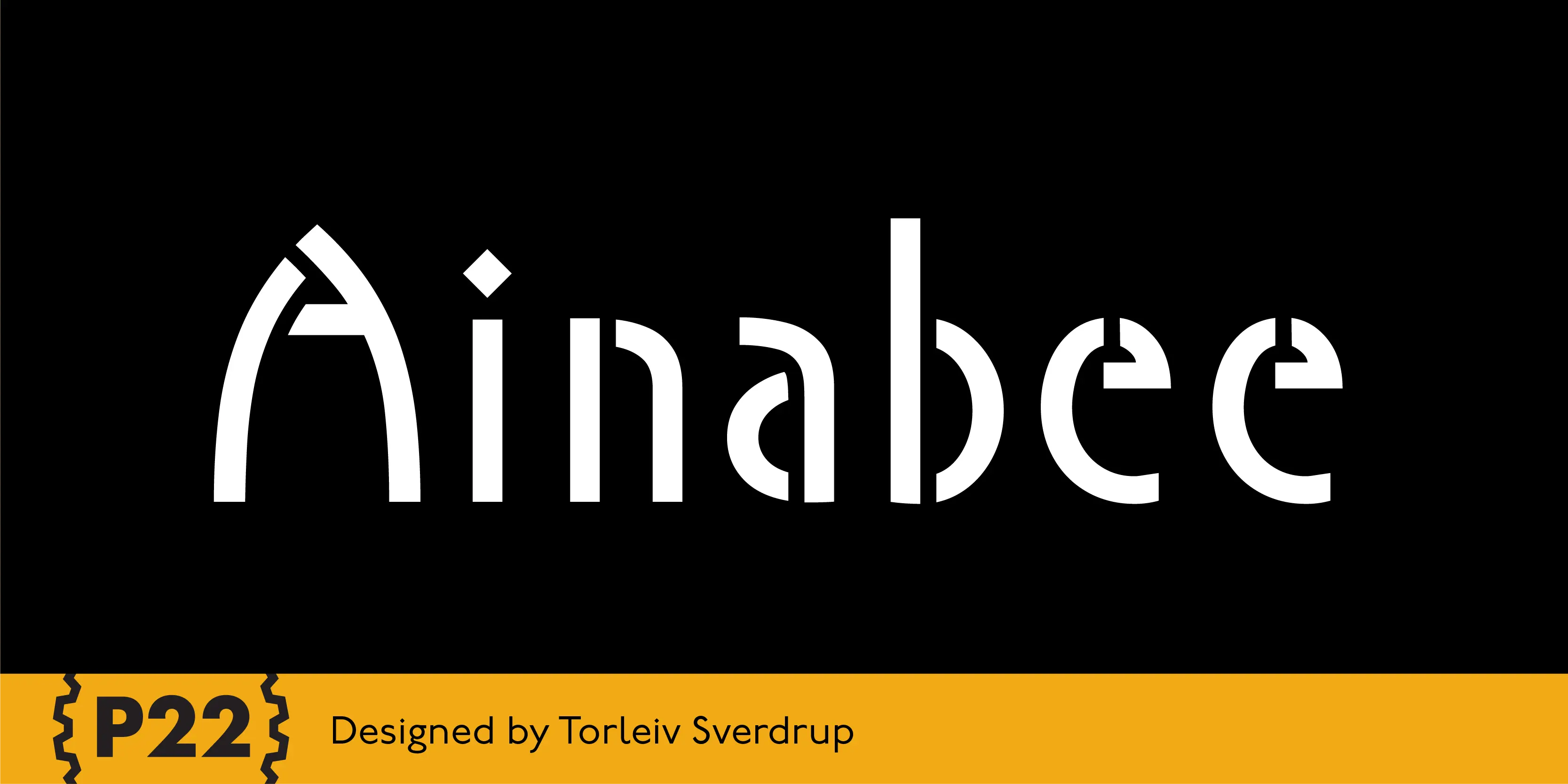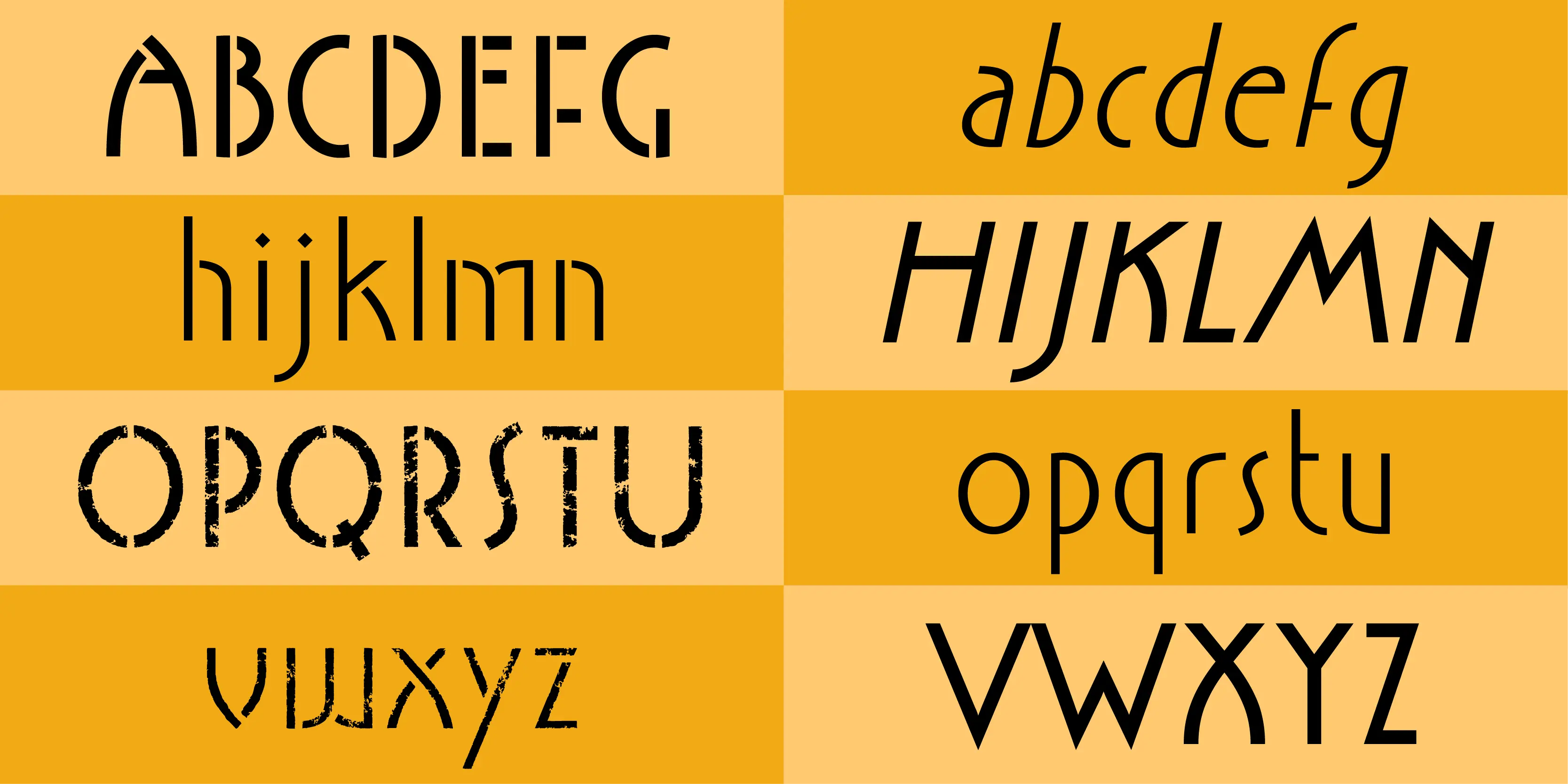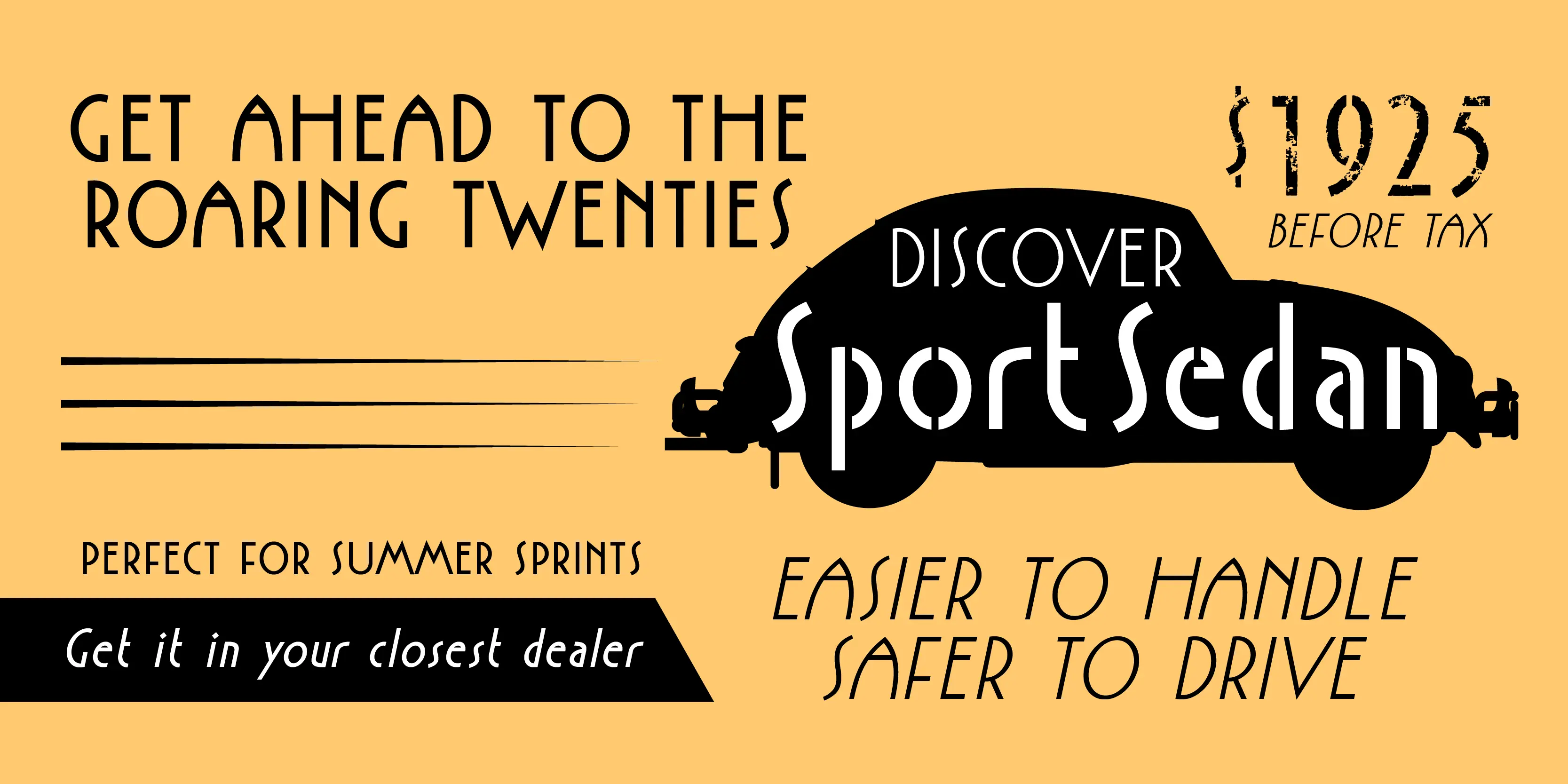
Ainabee Font Family
Ainabee
Ainabee is an Art Deco inspired type design. The designer states: “The Art deco period has always fascinated me. The Architecture, The Furniture, The Car Industry, Letters etc, much of what I associate with 20s and 30s. This design is my answer to this fascination. The name is a tribute to my girlfriend Aina.” The design is simple and precise in its form and is intended mainly for decorative use.